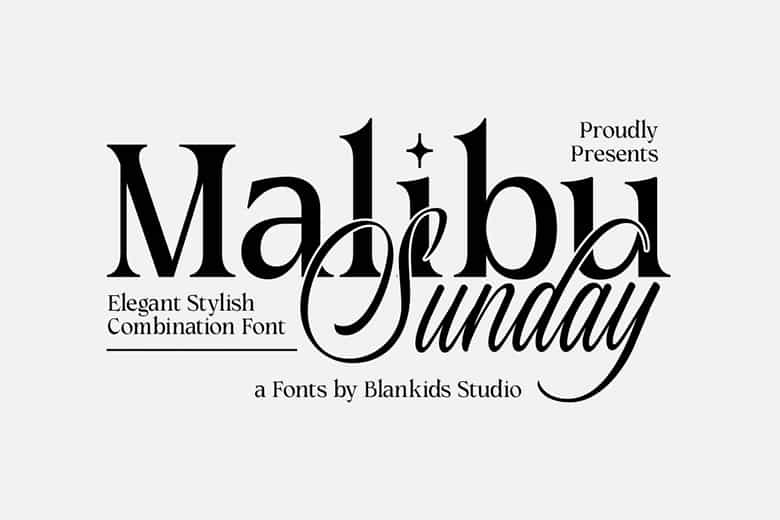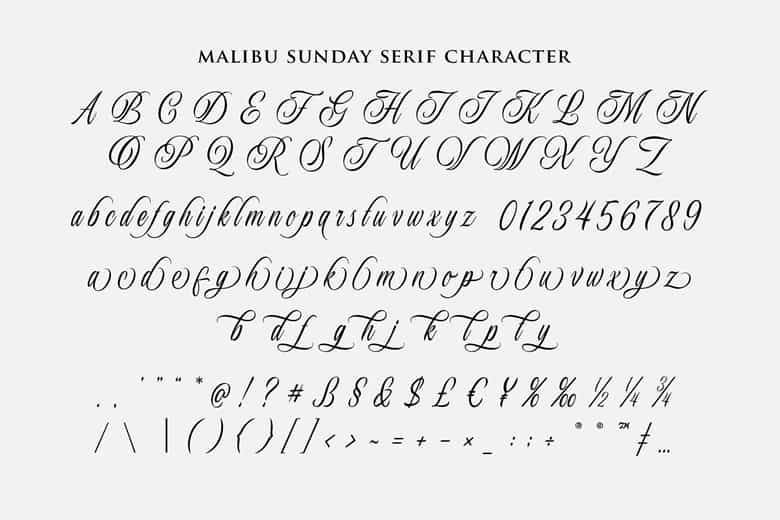
Malibu Sunday is a modern stylish font combination that fits to any professional project branding, including logo, watermark, poster, branding, promotions, product packaging etc. The classical elegance style design is applied for every letter. There is a serif and script style font duo.